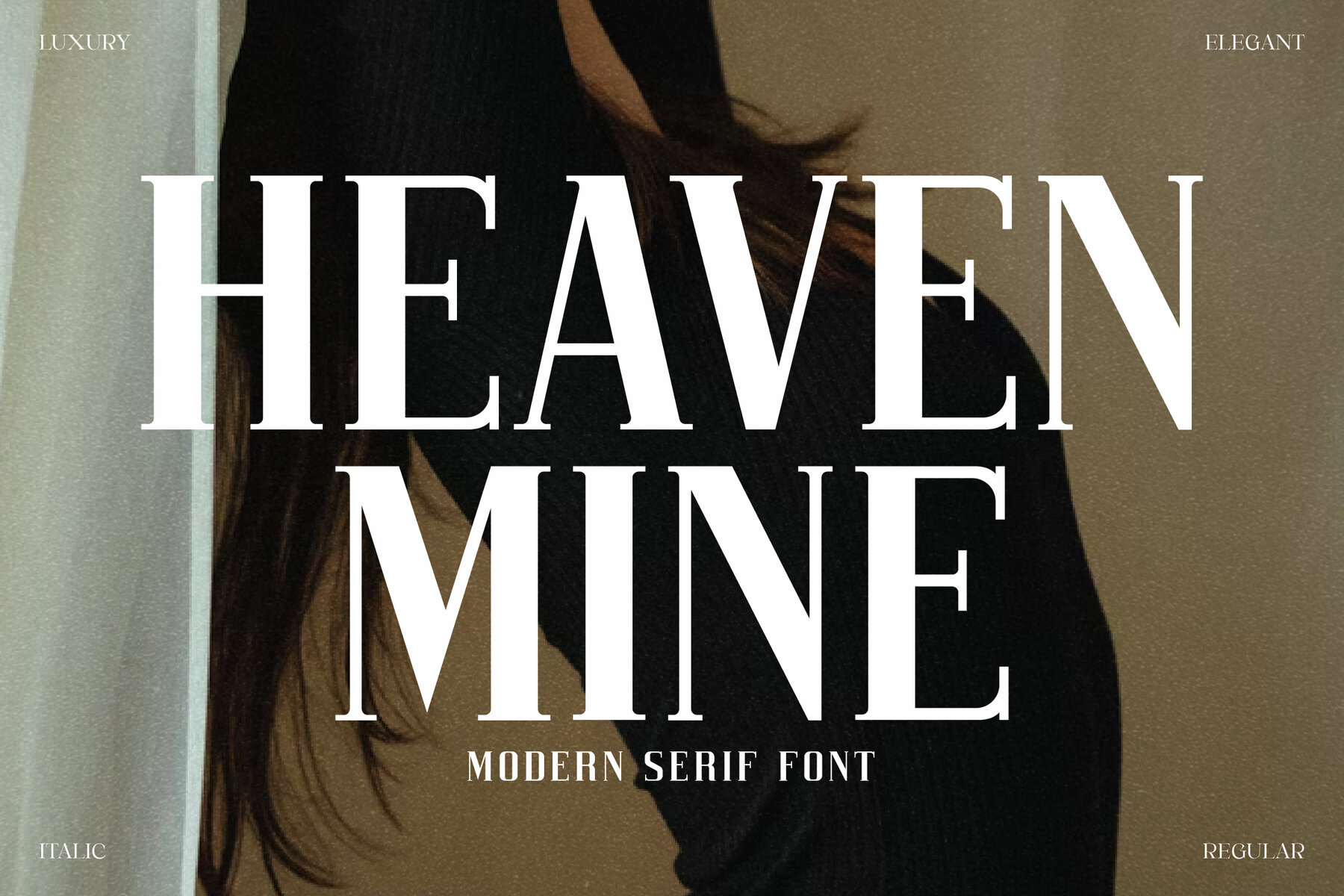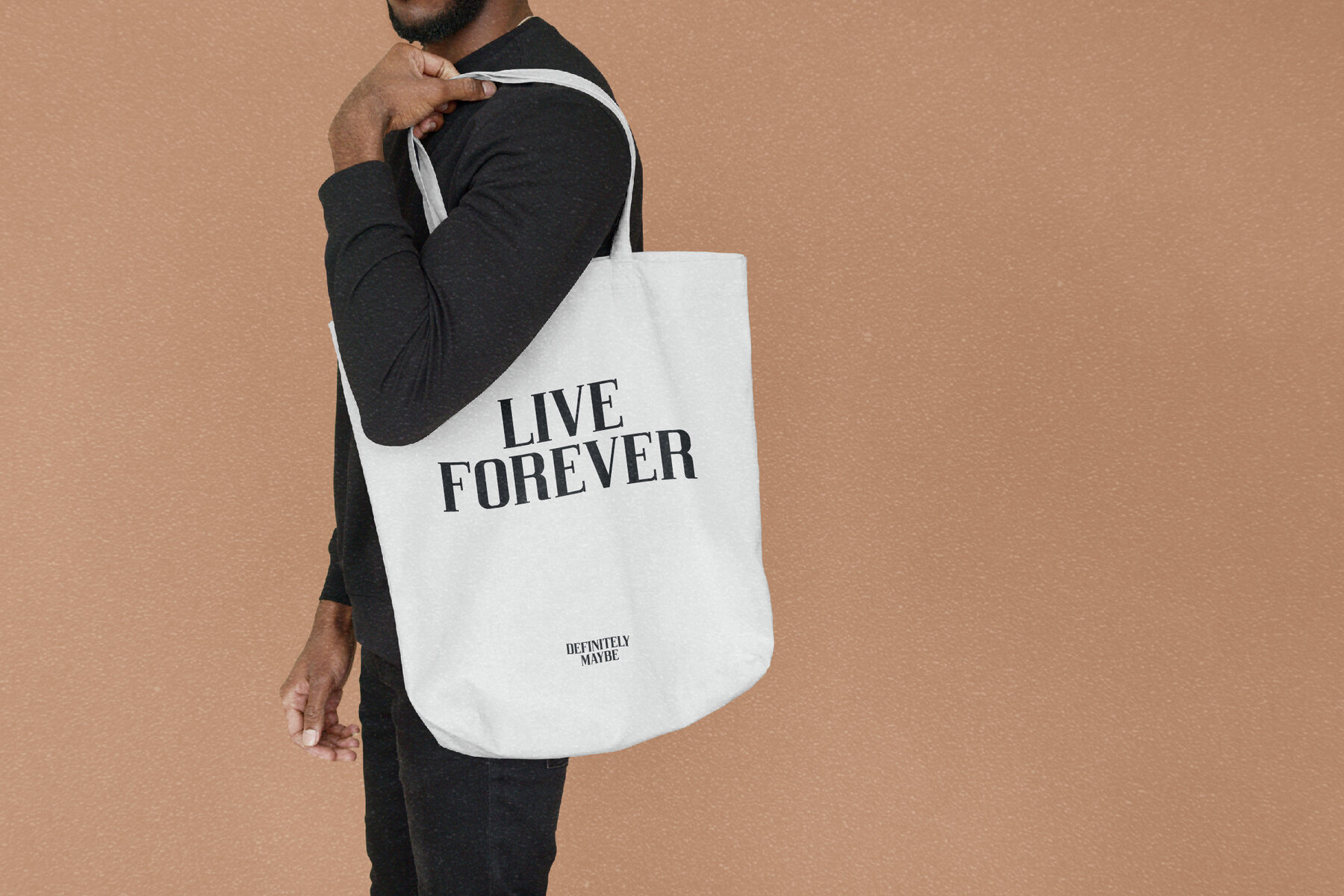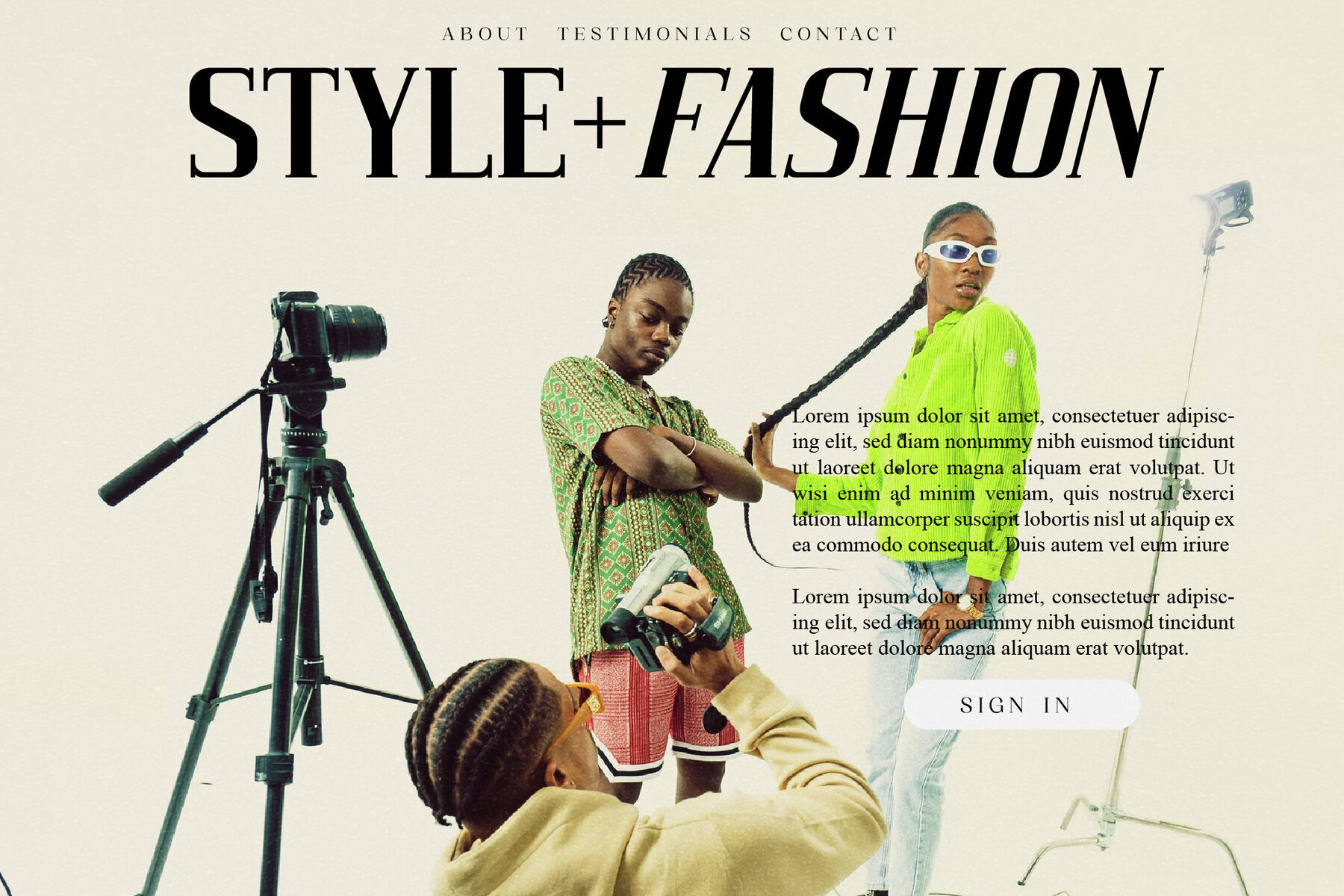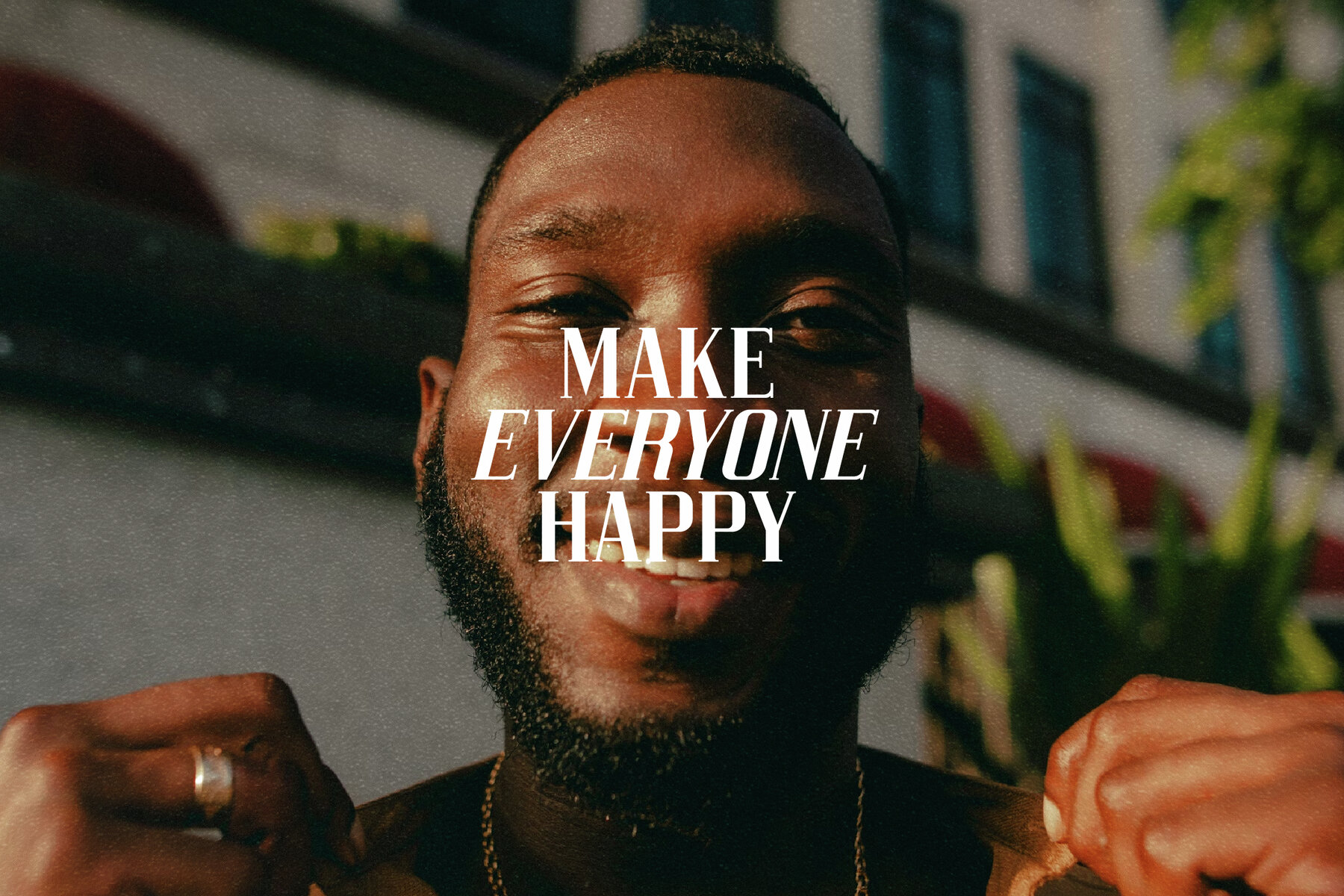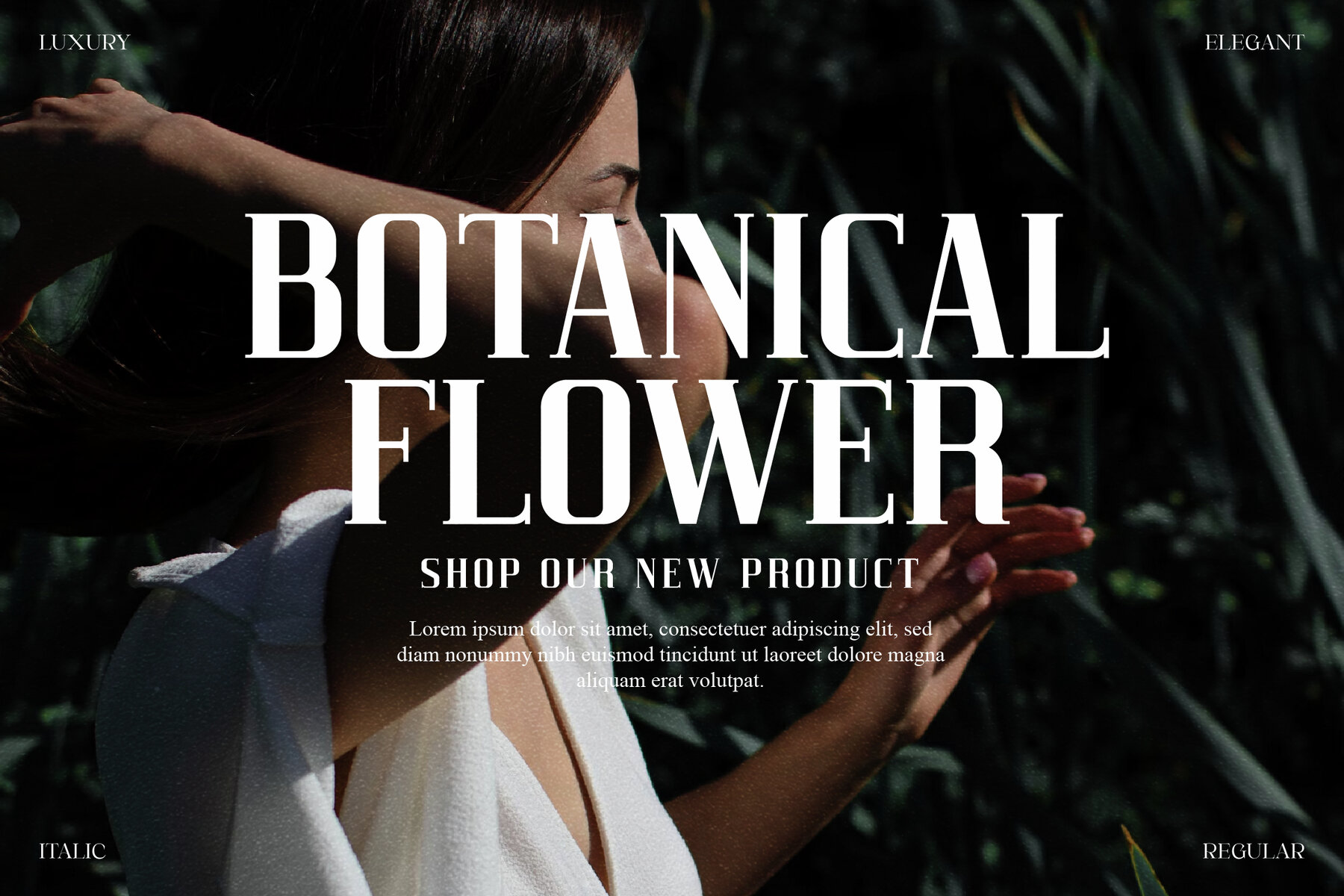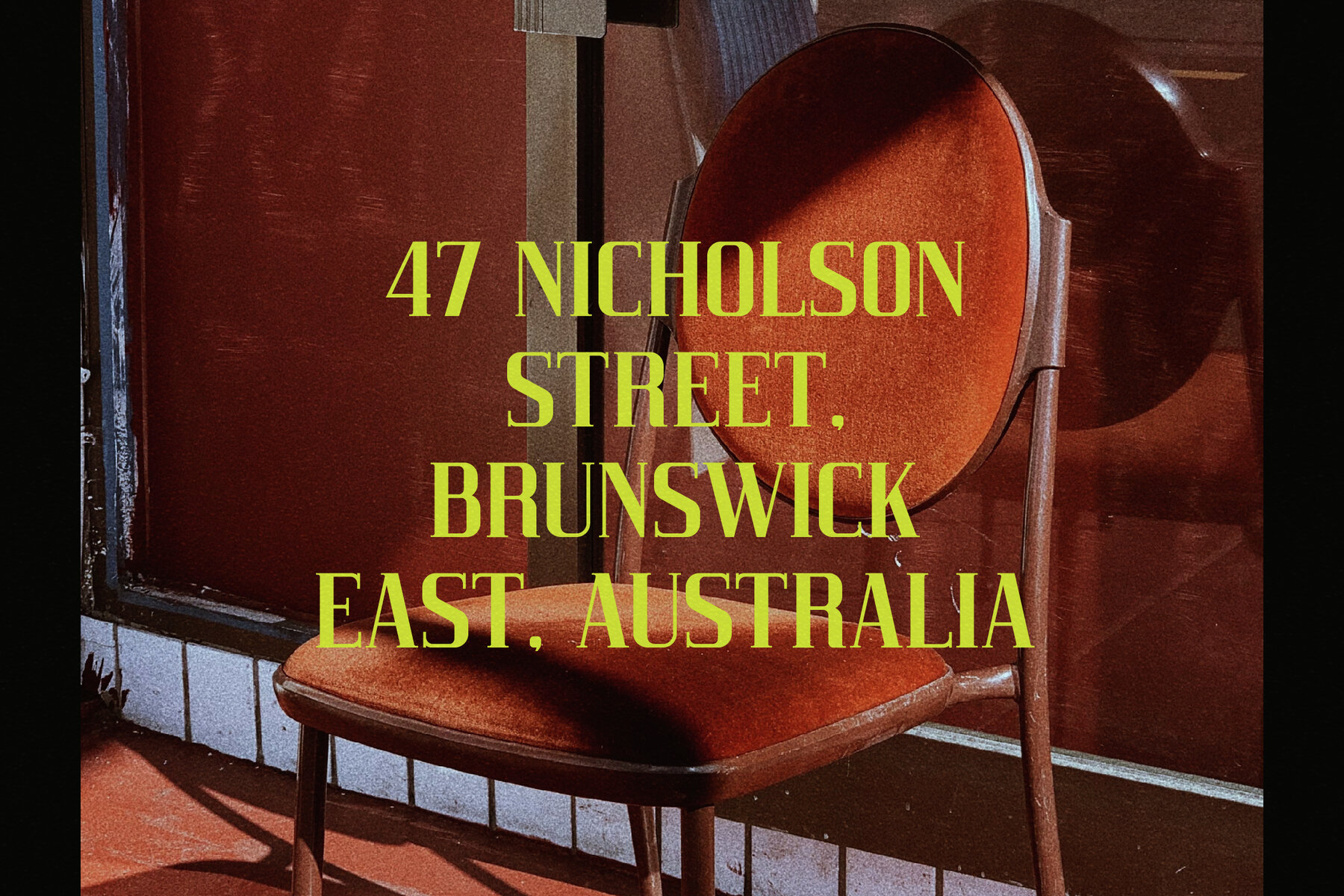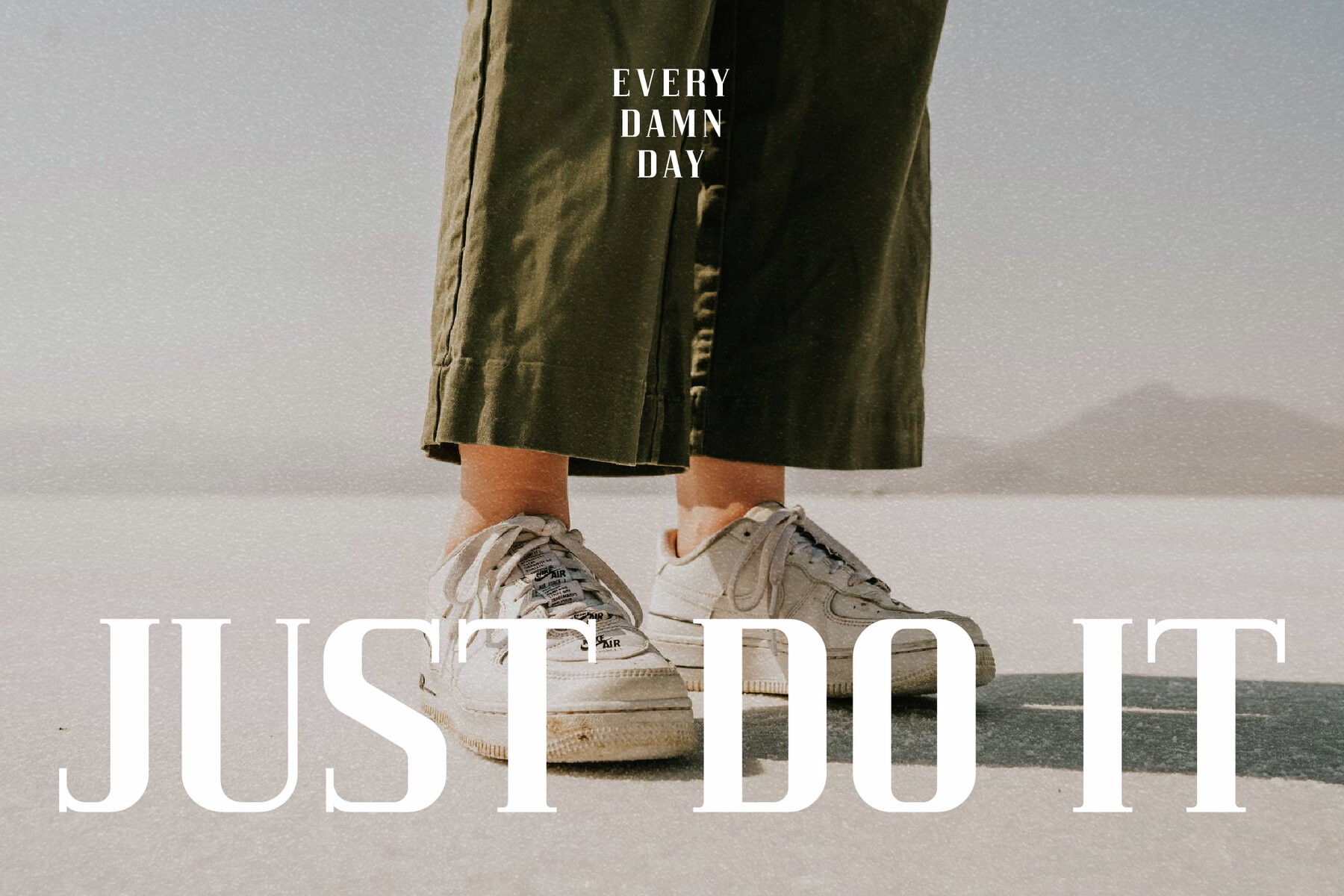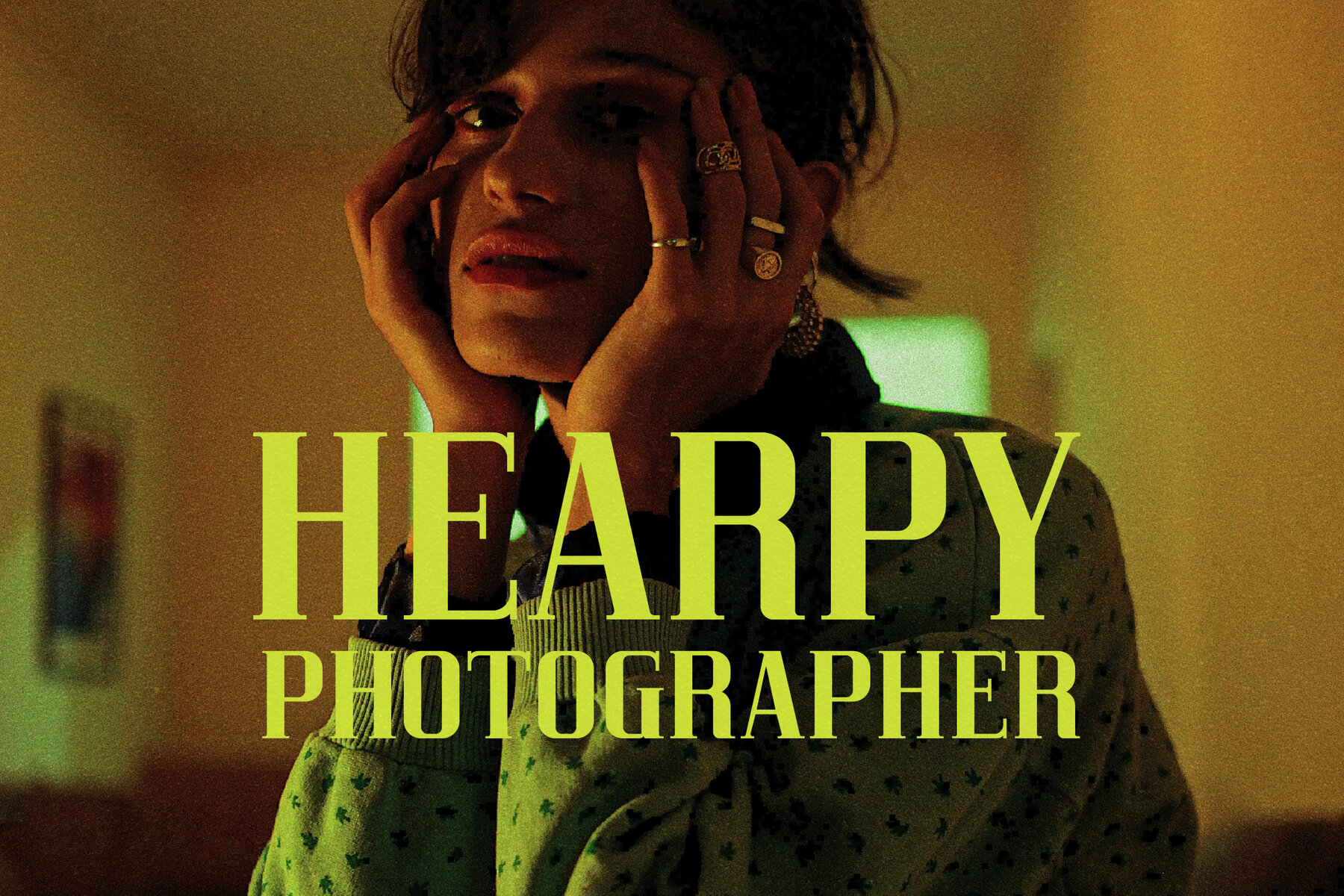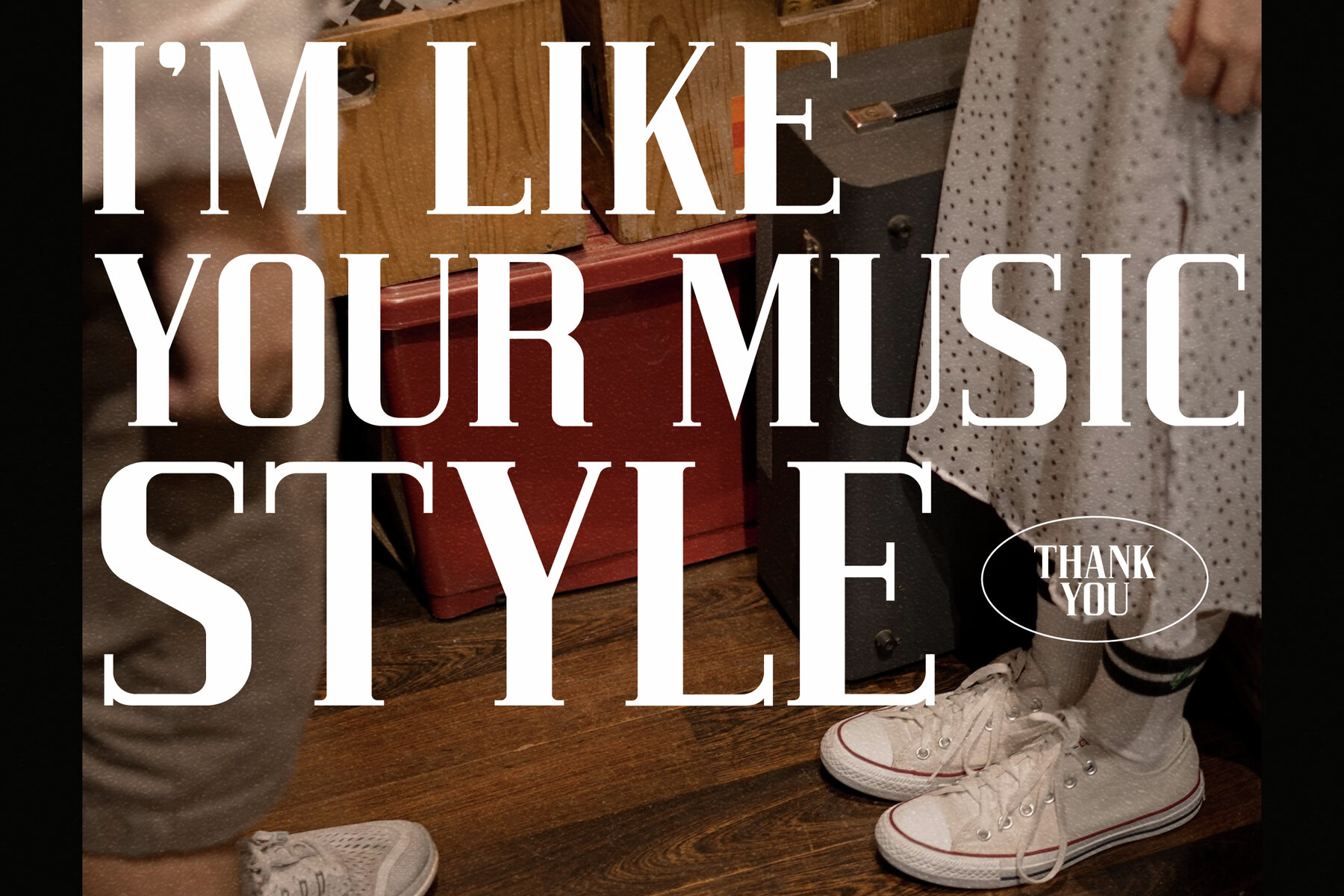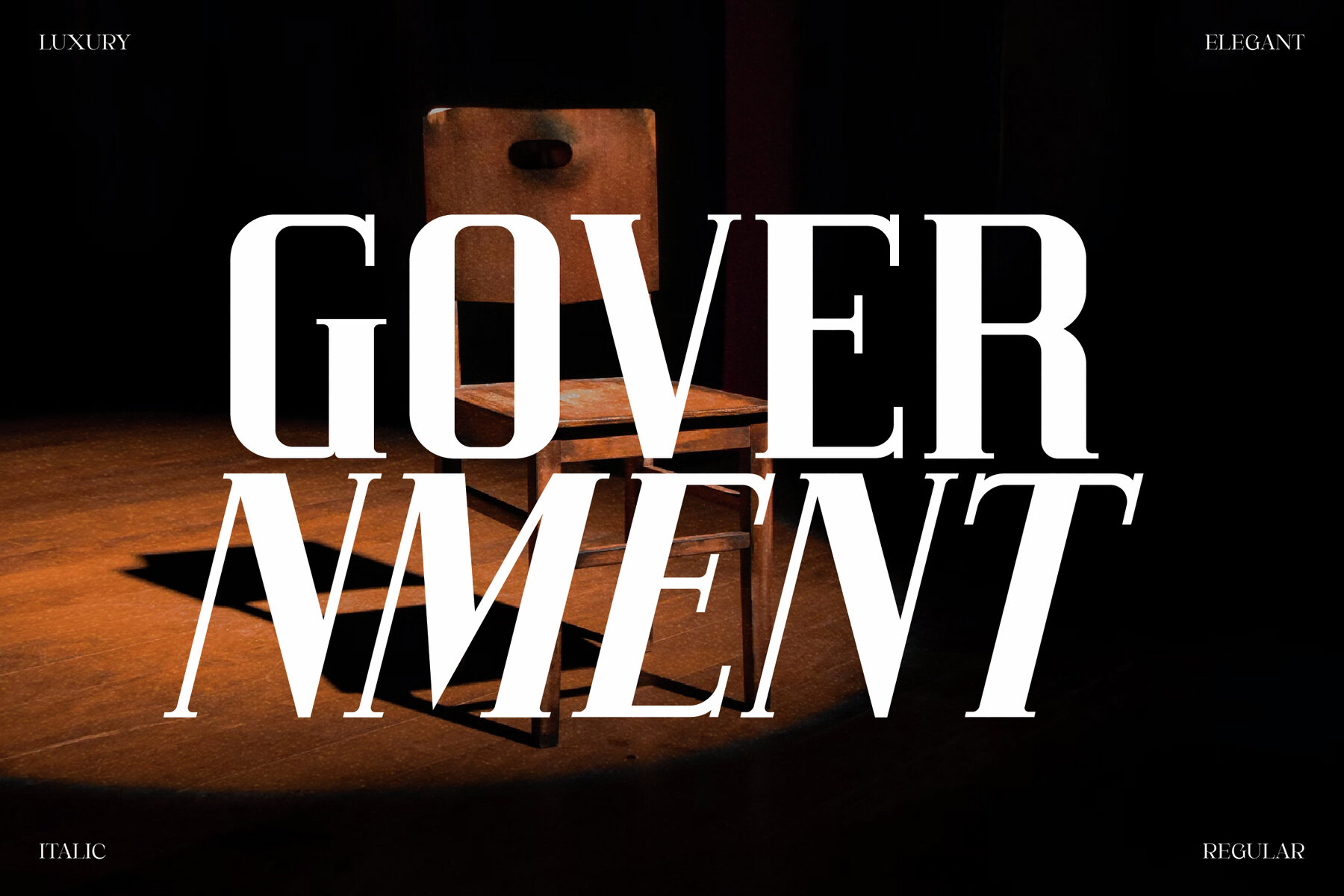
HEAVEN MINE Font
The HEAVEN MINE typeface by Storytype Studio seamlessly blends modern flair with classic serif elegance, creating a distinctive and refined aesthetic. Perfectly crafted for elegant logos, sophisticated book or movie titles, high-fashion branding, magazines, and diverse creative projects, this typeface adds a unique touch to your design work.HEAVEN MINE Typeface